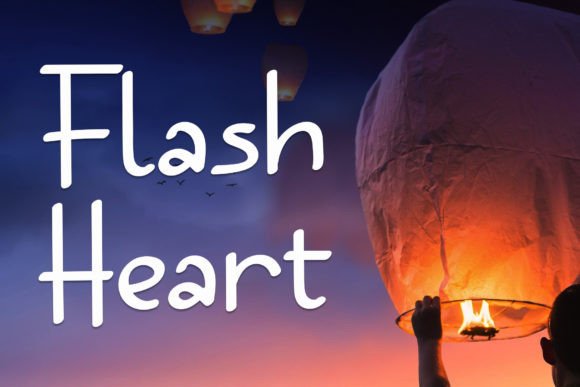
Download Flash Heart Font for free! Created by BabyArt and published by Julian Coffman, this display font family is perfect for adding a unique touch to your designs.
Flash Heart is a unique and elegant font specially designed just for you. This font is made with a professional hand touch and is perfect for your projects. This font is very suitable for use in your work projects, all greeting cards from wedding invitation cards, birthdays, and all types of parties.